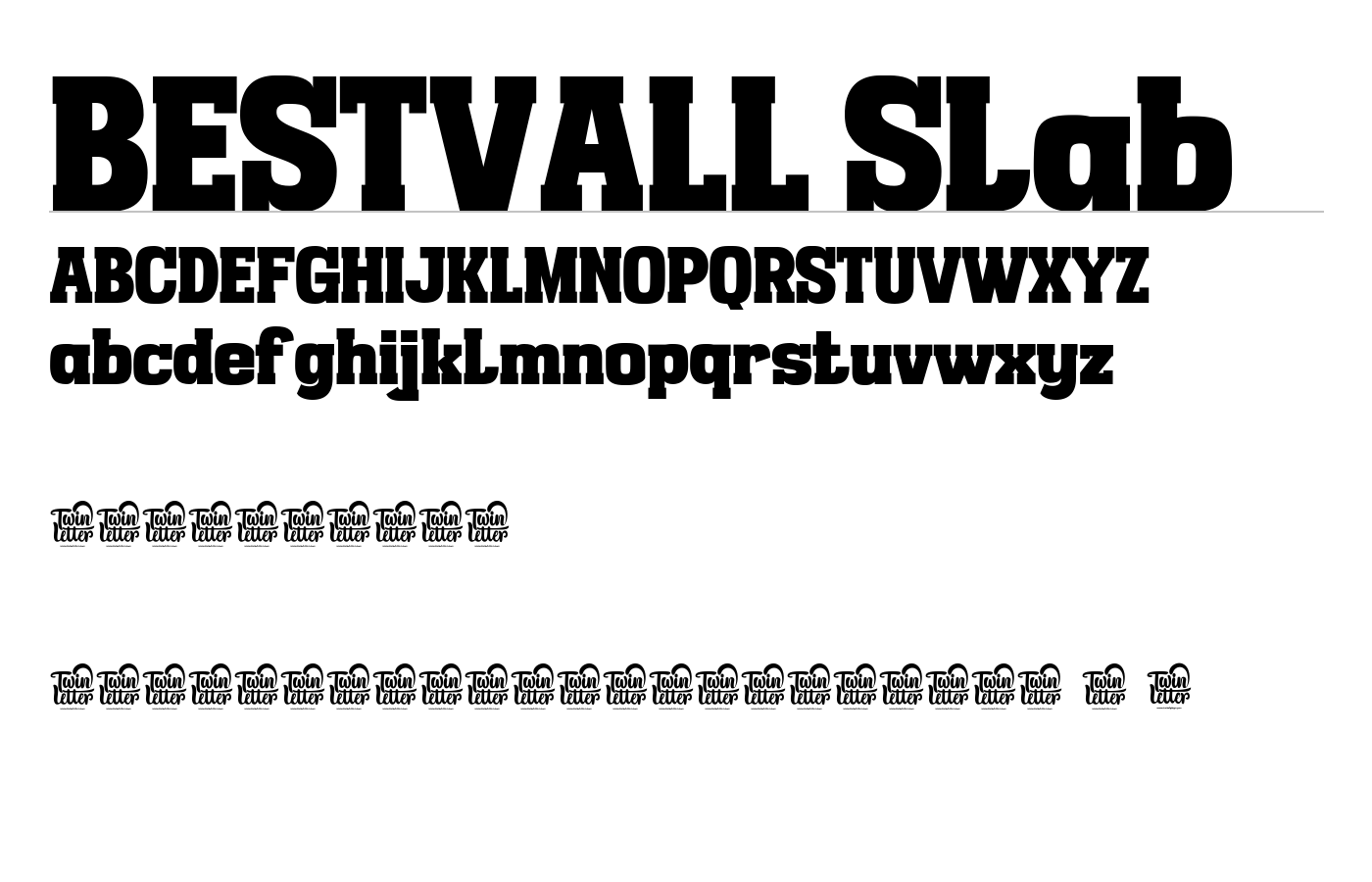
BESTVALL Slab is a bold and robust slab serif font with strong, blocky serifs and high contrast between thick and thin strokes, giving it a commanding presence. Its condensed width and chunky letterforms make it ideal for impactful headlines and branding that demand attention, especially in vintage or western-themed designs. This font works well for logos, posters, and packaging where a powerful, confident feel is needed.